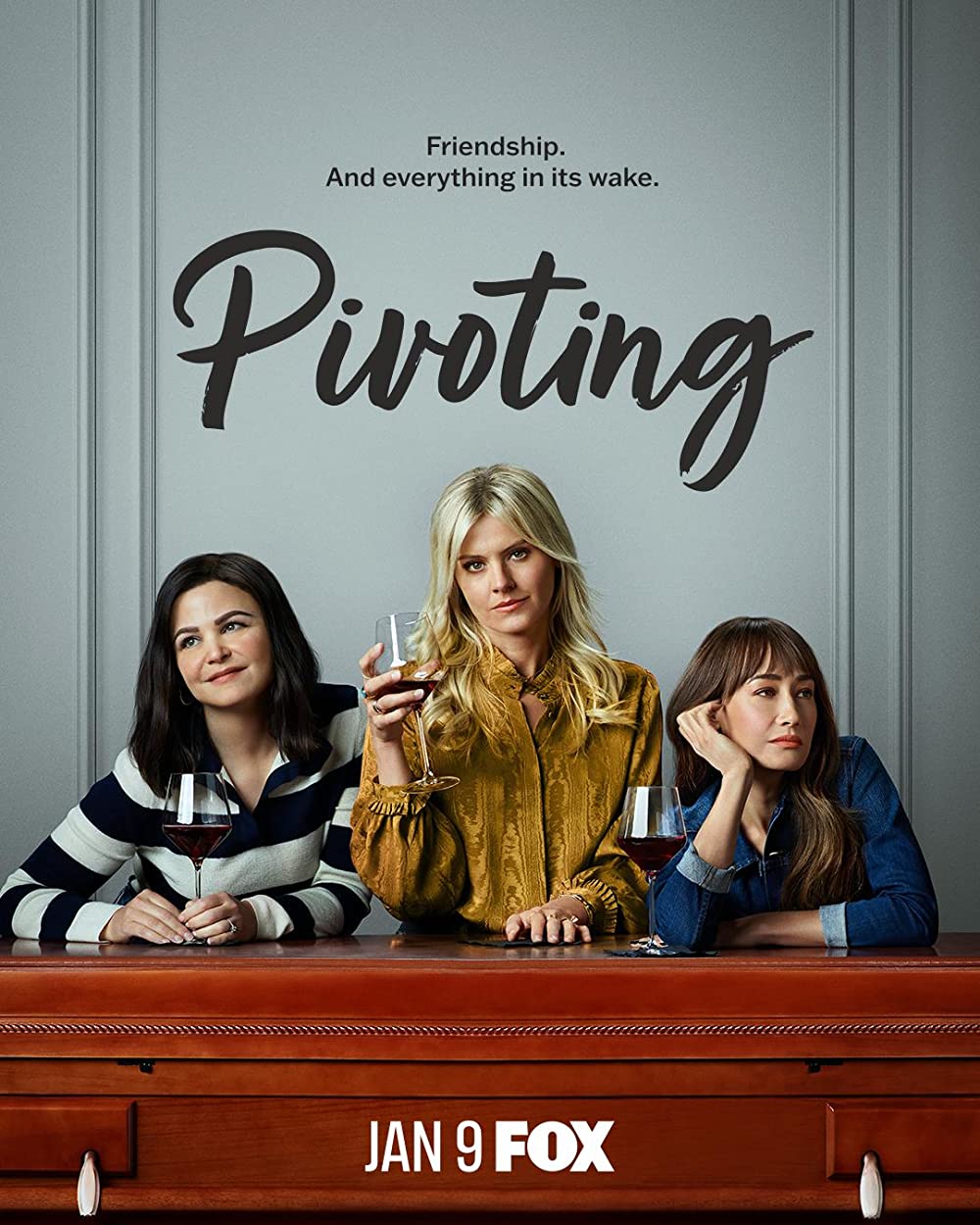
Pivoting [TV Show] Font
ComedyPivoting is a new TV sitcom created by Liz Astrof that follows a group of friends as they navigate their lives and careers in New York City.
The Pivoting title seems to use a dingbat, script, and display sans typeface called Turbinado created by Stephen Miggas. The font family was released by Aerotype and features 17 different styles.